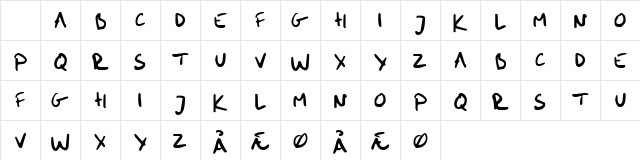
me handwritin flows with the natural rhythm of handwritten lettering, making it ideal for designs that call for warmth and personal expression. Its bold stroke weight gives it real presence on the page.
Font Pairing: Combine me handwritin with a simple geometric sans for maximum contrast - the tension between flowing curves and clean structure is a classic typographic pairing.
Pro Tip: Use me handwritin for short runs of text - names, titles, or taglines. Extended body copy in script faces tires the eye quickly.